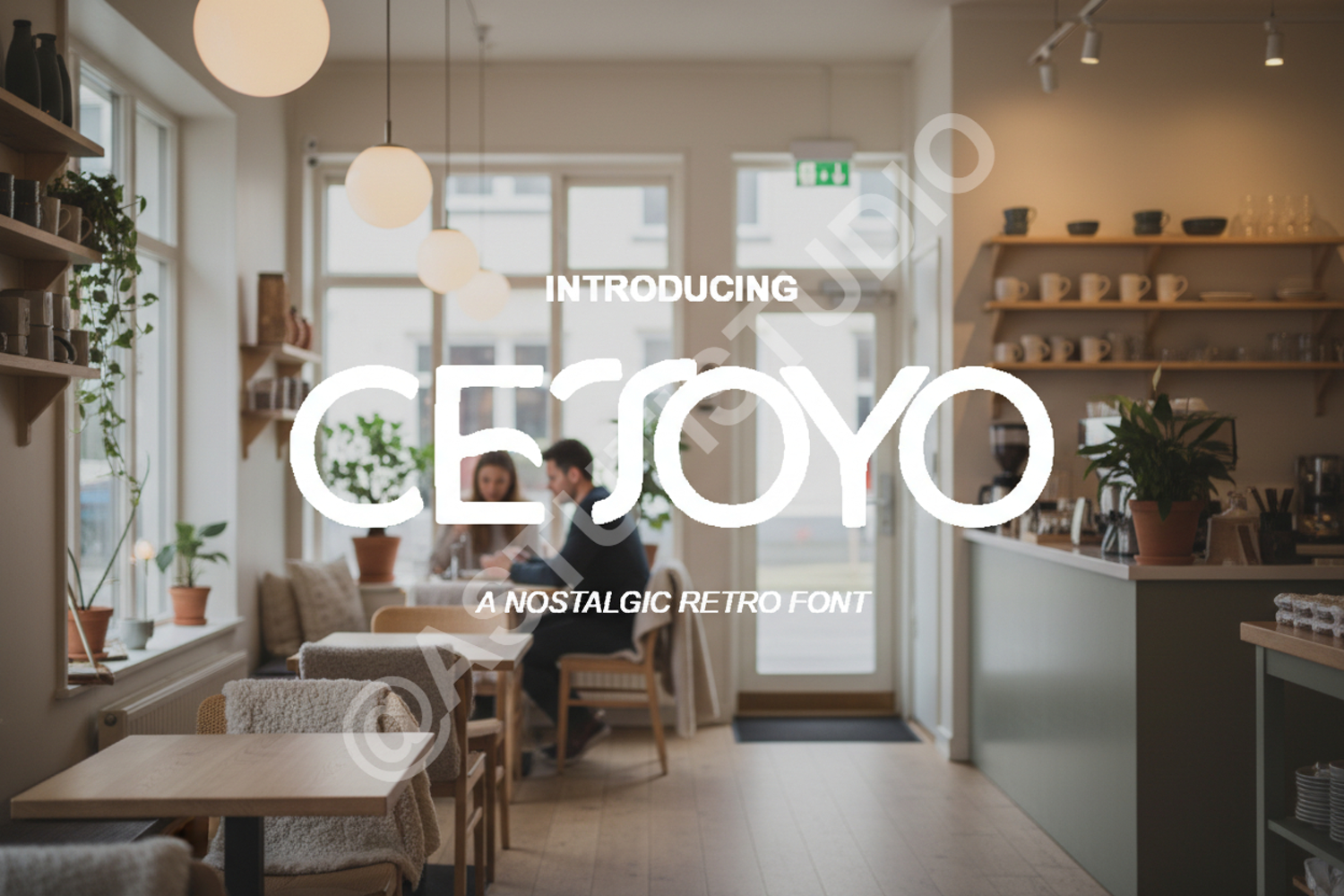
Cetoyo | Sophisticated Modern Serif Typeface
Cetoyo
Cetoyo is a premium serif typeface that seamlessly blends classic elegance with modern sophistication. Designed for creators who seek a high-end aesthetic, this font features clean lines and perfectly balanced proportions that make it incredibly versatile for both digital and print media. Its refined character ensures your designs stand out with a professional and timeless appeal.
- Comprehensive set of Uppercase and Lowercase letters
- Standard Ligatures and Alternates
- Full Multilingual Support
- Luxury Branding and Identity Systems
- High-End Editorial and Magazine Layouts
- Wedding Stationery and Event Invitations
- Professional Logo Design and Wordmarks
- Social Media Content and Lifestyle Graphics
- Premium Packaging and Product Labels